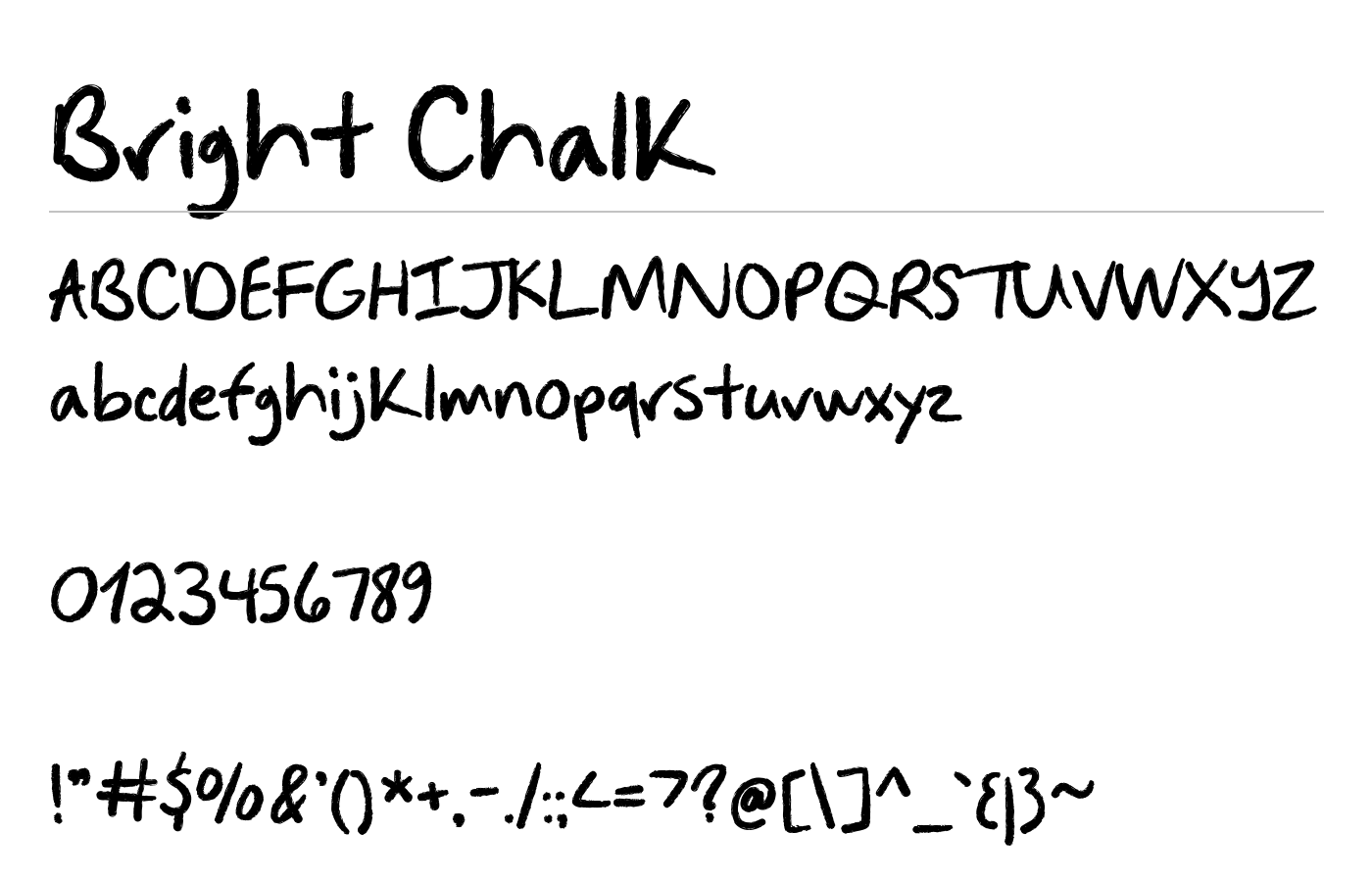
Bright Chalk Font is a playful, handwritten sans serif typeface that mimics the texture of chalk on a board, featuring irregular, slightly rough strokes and a friendly, informal feel. Its casual character and balanced spacing make it ideal for creative projects, educational materials, and fun branding where a warm, approachable tone is desired. This font works wonderfully in headlines, posters, and packaging, adding a human touch that feels authentic and inviting.
Bright Chalk Font
About Bright Chalk Font
| Designer | Misti's Fonts |